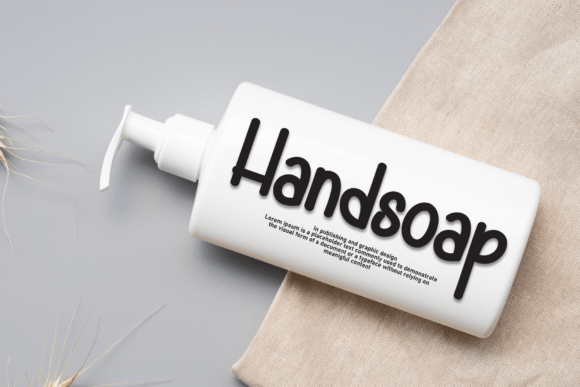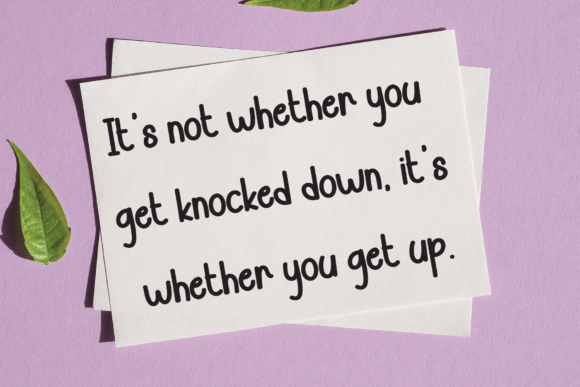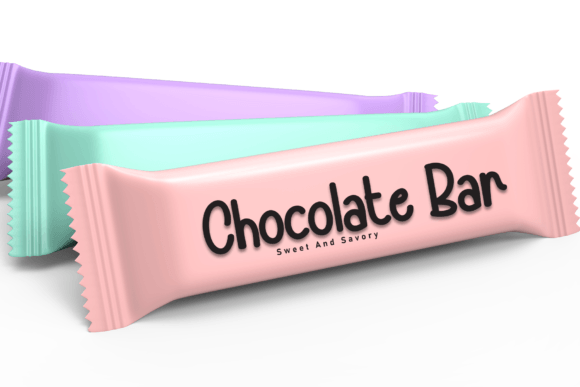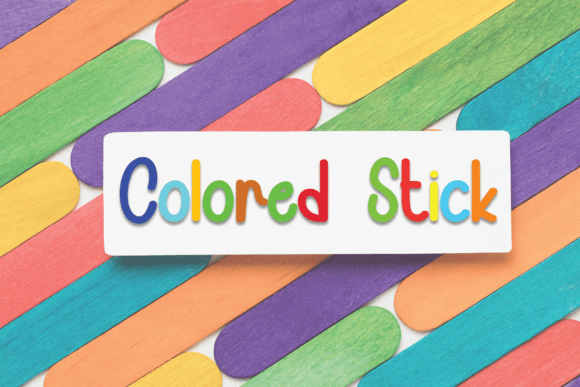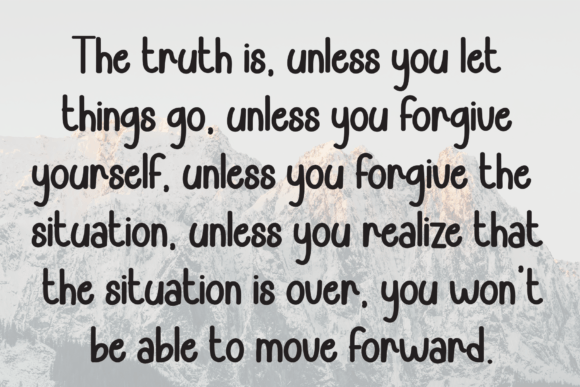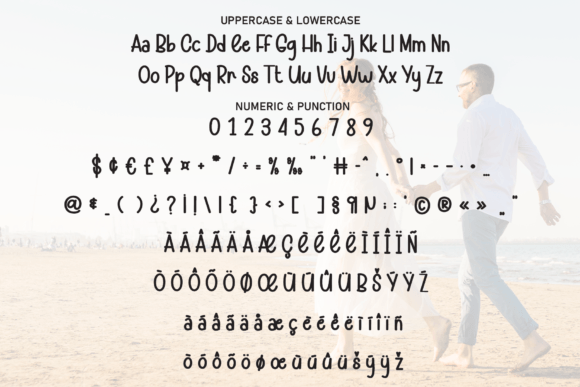
The Perfect Match for Your Next Design Project
Have you ever found yourself stuck in front of a blank design canvas, unsure of where to start? You’ve brainstormed ideas, browsed through inspiration boards, and still, nothing seems to be working. It’s a creative crisis we’ve all been there at some point. But sometimes, all it takes is a little spark to set off a design firework. For me, that spark came in the form of the Honeymoon Font a charming, handwritten font that exudes warmth and friendliness.
The Honeymoon Font is perfect for personal projects, invitations, and social media graphics. Its rounded, playful strokes give a relaxed and approachable feel, making it an ideal choice for designers looking to add a touch of whimsy to their designs. Whether you’re a seasoned pro or a design newbie, the Honeymoon Font is a valuable addition to your design toolkit, allowing you to create designs that feel personal and authentic.
Honeymoon Font Key Features
- Font Family: Honeymoon Font is a modern sans-serif font family designed for digital use.
- Character Count: The font family includes a wide range of characters, including Latin, Cyrillic, and Greek alphabets, as well as punctuation and symbols.
- Unique Characteristics: The font features a clean, elegant design with subtle rounded edges and a modern feel, making it ideal for use in branding, advertising, and editorial design.
Honeymoon Font Review
As a designer, I was excited to try out the Honeymoon Font. Here’s my honest review.
- The Honeymoon Font has a beautiful, elegant feel to it. It’s perfect for weddings, honeymoons, or any romantic theme.
- The font is highly customizable, with a wide range of weights and styles available.
- The Honeymoon Font is also very legible, making it a great choice for body text.
- The Honeymoon Font can be a bit too ornate for some designs. It may not be the best choice for more minimalist or modern themes.
- The font is not as widely supported as some other fonts, which may cause issues in older browsers or devices.
Overall, I think the Honeymoon Font is a great choice for designers looking to add a touch of romance and elegance to their projects. While it may have some limitations, it’s a beautiful and highly customizable font that’s sure to impress.
Honeymoon Font is commonly used in wedding invitations, love letters, and romantic greeting cards. It can also be used in designs for social media, blogs, and websites that focus on love, relationships, and romance.
Alternatives to Honeymoon Font
Cupid Script
Cupid Script is a romantic, cursive script font perfect for wedding invitations, love letters, and other sentimental occasions. It features elegant connections and flowing strokes, making it ideal for creating a whimsical and dreamy atmosphere.
Compared to Honeymoon Font, Cupid Script has a more playful and youthful feel, while Honeymoon Font has a more classic and sophisticated look.
Lovers Delight
Lovers Delight is a beautiful, handwritten font designed for romantic and elegant typography. It features a mix of modern and classic elements, making it suitable for a wide range of wedding-related materials, from invitations to wedding programs.
Lovers Delight has a more modern and edgy feel compared to Honeymoon Font, which is more traditional and classic. Lovers Delight is ideal for couples who want a unique and trendy look for their wedding stationery.